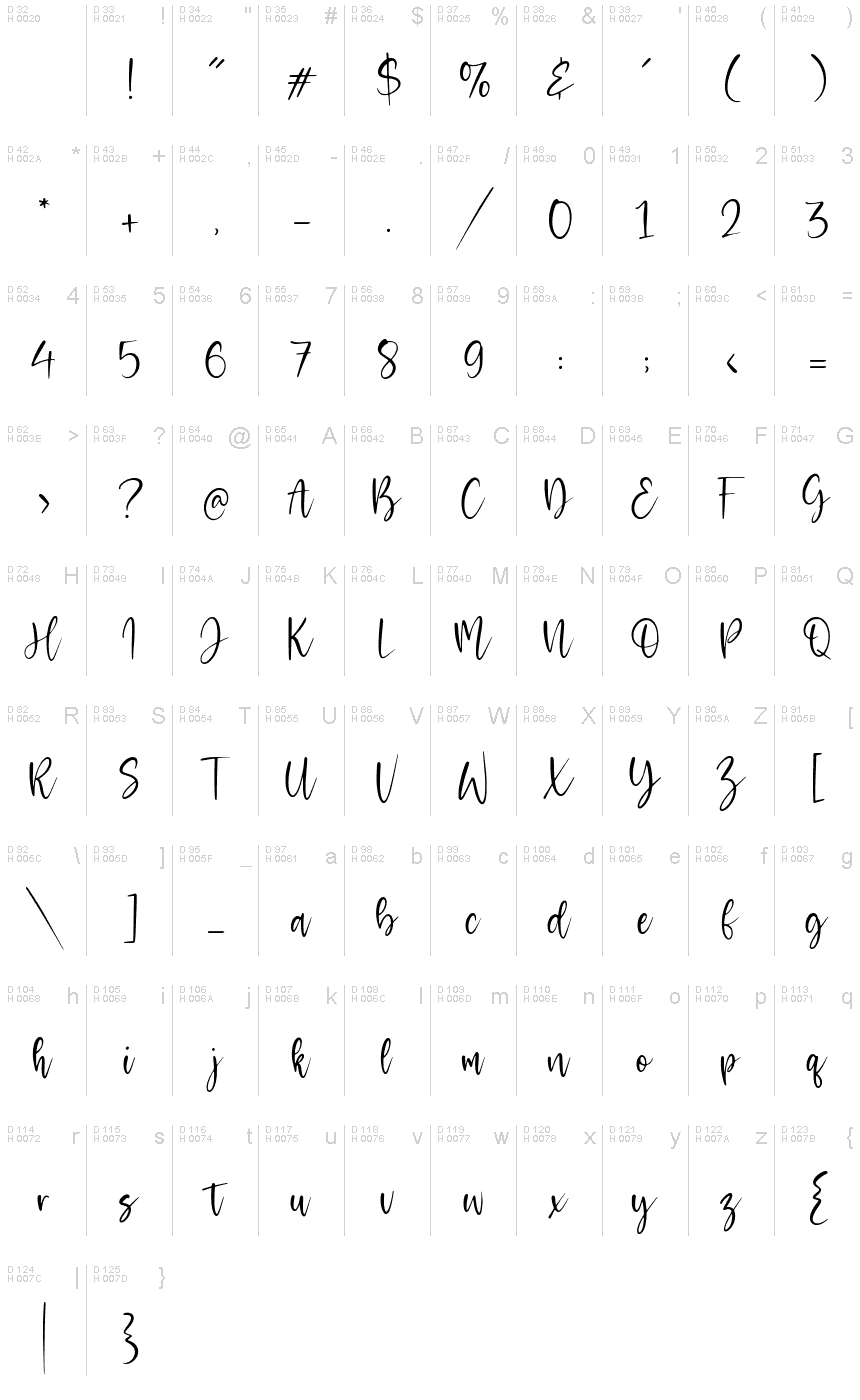
Melodicstar
Introducing Melodicstar, a light handwritten font created by Balpirick Studio. It is perfect for adding a creative and elegant touch to any project. Perfect for use in logos, branding materials, magazines, invitations, wedding cards, packaging designs and more! Its distinctive style gives your design projects an authentic and unique feel. Dive into the possibilities of Melodicstar today!